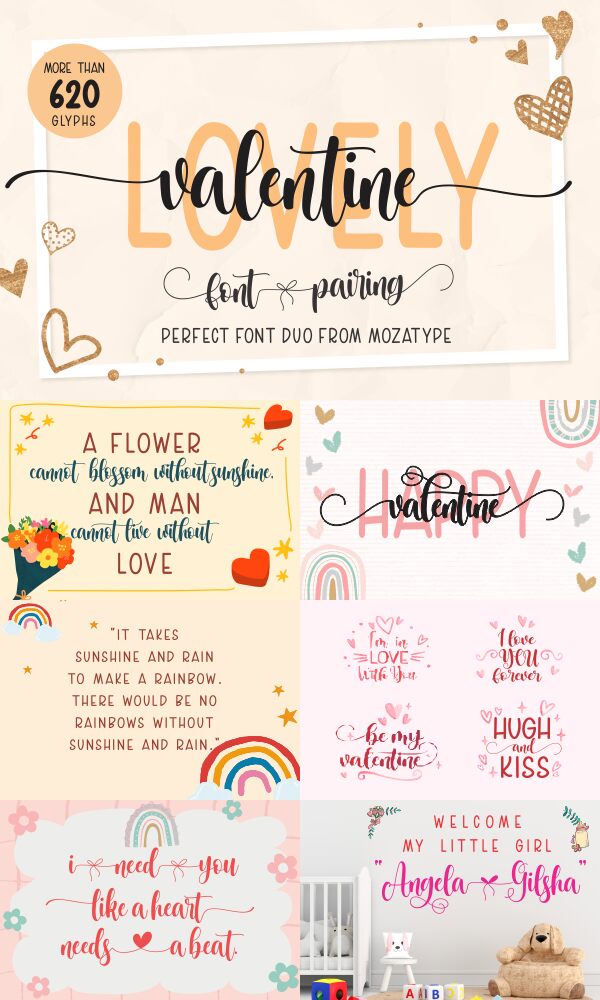
Lovely Valentine Script, a creation by Mozatype, is a semi-light, condensed script font that embodies the spirit of love and romance. With its delicate strokes and flowing curves, this font exudes elegance and charm.
Perfect for wedding invitations, greeting cards, or any project that needs a touch of romance. Its calligraphic style adds an extra layer of sophistication to your designs. Let Lovely Valentine Script be the cupid's arrow that strikes the hearts of your audience with its captivating beauty.